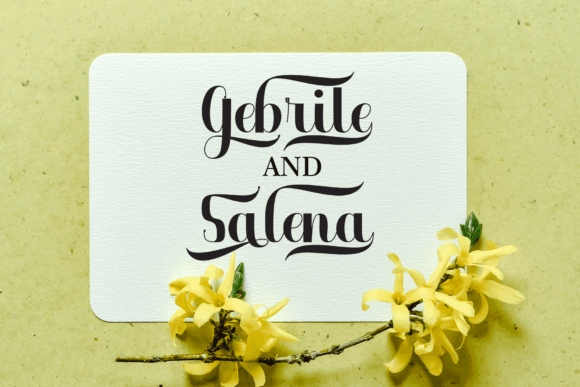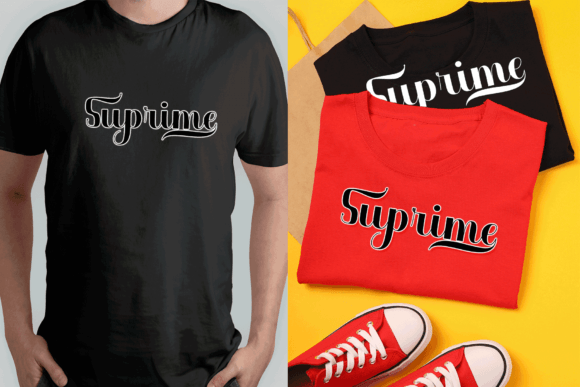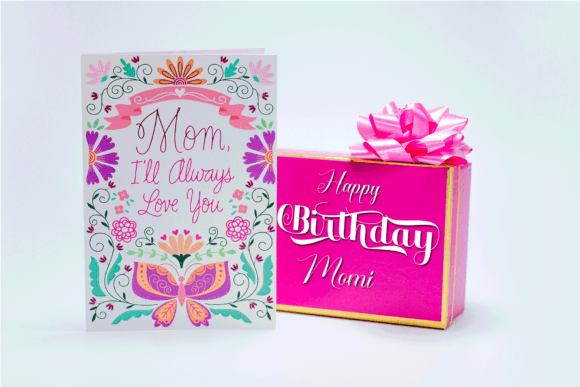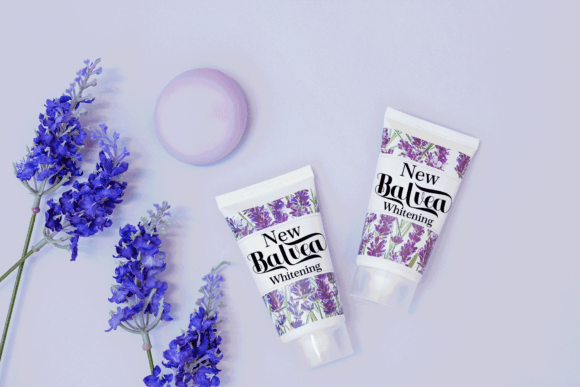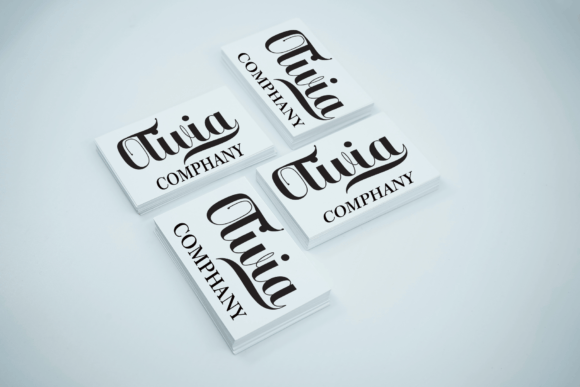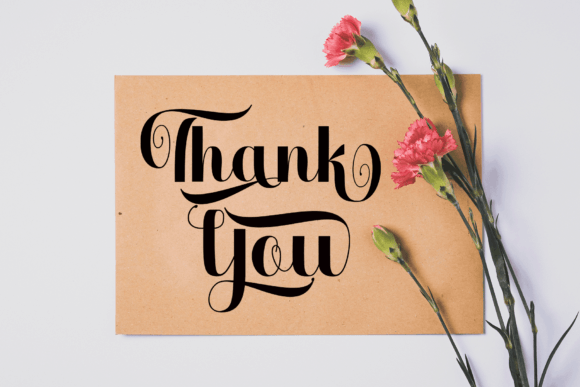
Brighton Font: The Ultimate Handmade Script Font for Designers and Crafters
Are you a designer or crafter looking for a unique and versatile font to elevate your creative projects? Look no further than Brighton Font, a stunning handmade script font that is perfect for a wide range of applications. In this article, we’ll take a closer look at the features and benefits of Brighton Font, and explore how it can help you take your designs to the next level.
What is Brighton Font?
Brighton Font is a beautiful, handmade script font that has been created in a freestyle manner, giving it a truly unique and organic feel. This font is perfect for anyone who works on creative projects, such as logos, wedding invitations, headings, t-shirts, letterheads, signage, labels, news, posters, badges, and more.
One of the standout features of Brighton Font is its versatility. With its elegant and flowing script style, this font can be used for a wide range of purposes, from formal and professional designs to more creative and playful projects.
Key Features of Brighton Font
So, what makes Brighton Font so special? Here are just a few of its key features:
- Handmade script font: Brighton Font is a truly unique, handmade script font that has been created with love and care. Its freestyle approach gives it a warm and organic feel that is perfect for a wide range of designs.
- PUA encoded: Brighton Font is PUA (Private Use Area) encoded, which means that you can access all of the glyphs and swashes with ease. This makes it easy to customize your designs and add your own personal touch.
- Perfect for a wide range of projects: Whether you’re working on a logo, wedding invitation, heading, t-shirt, letterhead, signage, label, news article, poster, badge, or any other type of design, Brighton Font is the perfect choice.
Benefits of Using Brighton Font
So, why should you choose Brighton Font for your next design project? Here are just a few of the benefits of using this amazing font:
- Add a personal touch to your designs: With its handmade script style, Brighton Font is the perfect way to add a personal touch to your designs. Whether you’re working on a formal or informal project, this font is sure to make your designs stand out.
- Easy to use and customize: Brighton Font is PUA encoded, which makes it easy to access all of the glyphs and swashes. This means that you can customize your designs with ease, and add your own personal touch.
- Perfect for crafters and designers: Whether you’re a professional designer or a crafter who loves to work on creative projects, Brighton Font is the perfect choice. Its versatility and ease of use make it perfect for anyone who wants to create beautiful designs.
- Customize the font to your liking: With its PUA encoding, Brighton Font is easy to customize. Experiment with different glyphs and swashes to add your own personal touch to your designs.
In conclusion, Brighton Font is an amazing handmade script font that is perfect for designers and crafters. Its versatility, ease of use, and beautiful script style make it perfect for a wide range of projects. Whether you’re working on a formal or informal design, Brighton Font is sure to make your designs stand out.